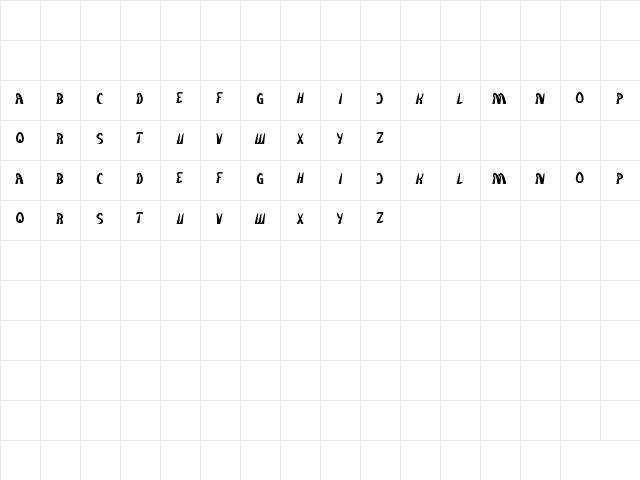
frozen ice Regular Font Preview
frozen ice Regular
frozen ice Regular Font Details
Design Context for frozen ice Typeface
frozen ice is a composed and adaptable typeface that performs quietly and consistently across a wide range of design contexts.